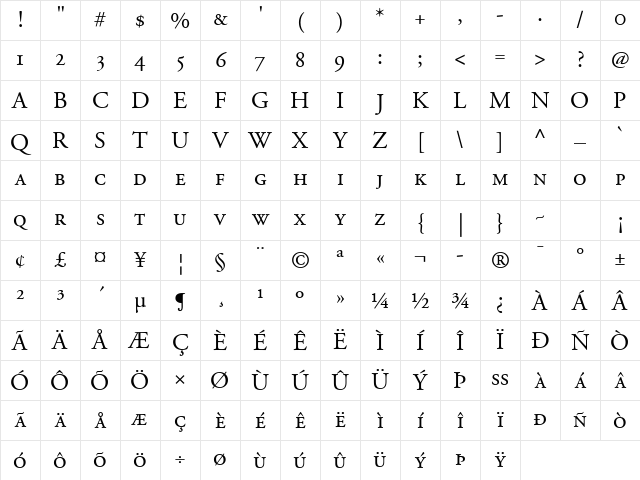
AGaramond RegularSC Regular
AGaramond RegularSC Family
Design Context for AGaramond RegularSC
AGaramond RegularSC is a composed and adaptable typeface that performs quietly and consistently across a wide range of design contexts.